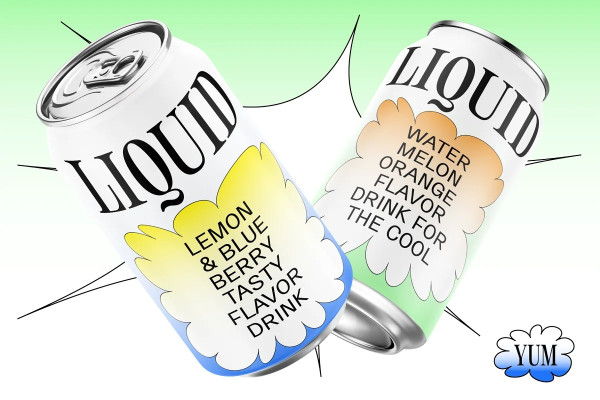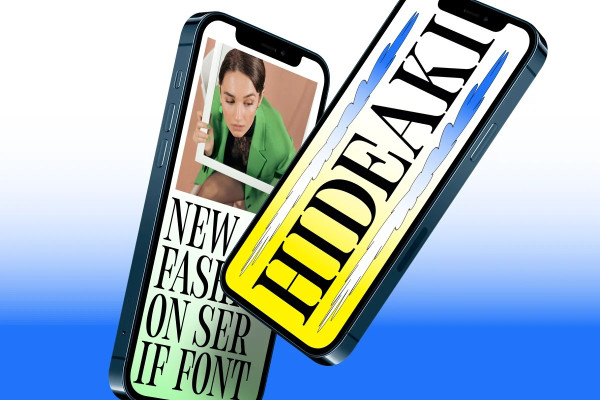
Hideaki Font
Hideaki Font is a condensed modern display serif inspired by the typography of Neon Genesis. It is reserved yet has distinct moments of personality. like the notches on the legs of the R and K. it is condensed so you can fit a lot into a headline and really make an impact on print, magazines, posters, Instagram, video, branding, or whatever project you are working on.